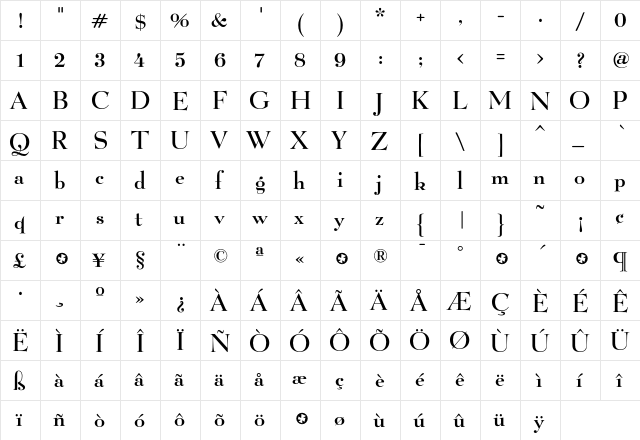
BeLucianDemi Regular
Design Context for BeLucianDemi Typeface
BeLucianDemi takes a measured approach to typography — its balanced proportions and neutral character make it a reliable workhorse for both digital and print work.